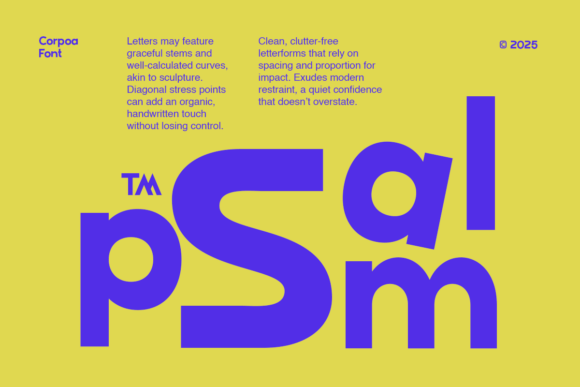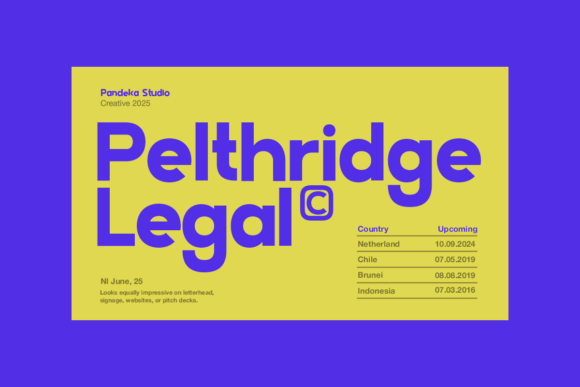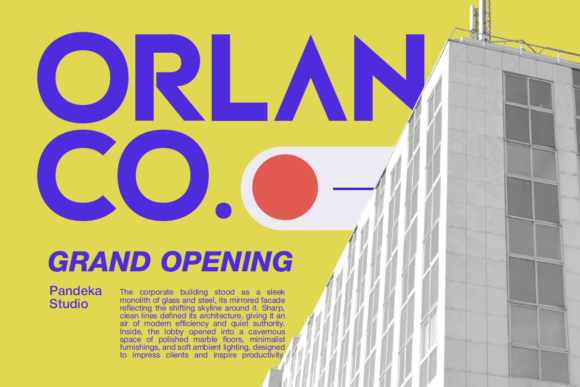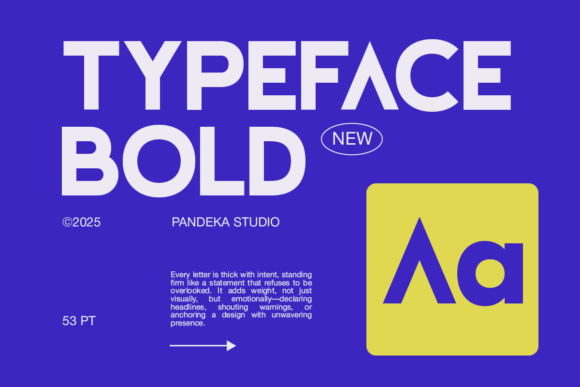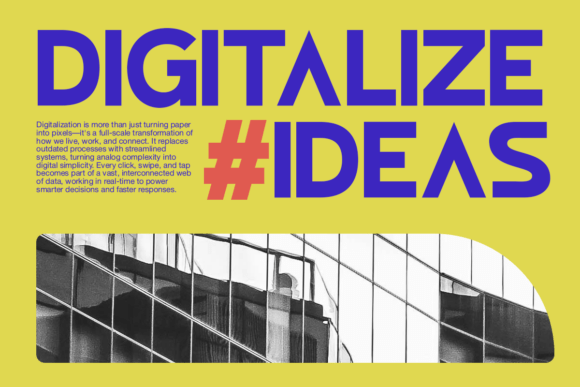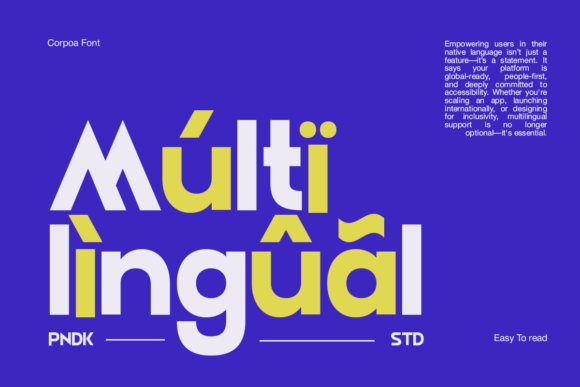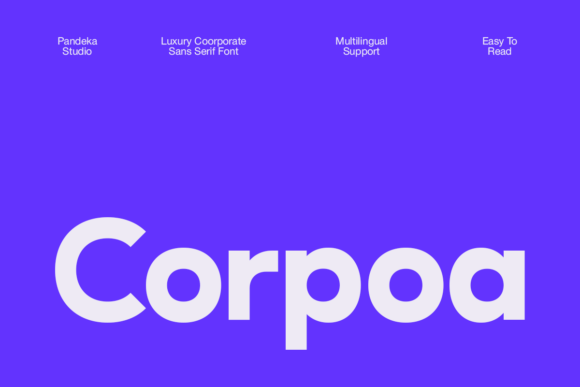
Introducing Corpoa Font: The Perfect Blend of Boldness and Friendliness
In the world of typography, finding the right font can make all the difference in creating a lasting impression. For designers and crafters looking for a font that exudes confidence and approachability, Corpoa Font is an excellent choice. This contemporary rounded sans-serif font is designed to fuse bold character with a friendly tone, making it perfect for a wide range of applications.
Design Characteristics of Corpoa Font
Corpoa Font boasts soft terminals and a geometric structure, giving it a versatile look that works seamlessly in both print and digital settings. Its rounded edges and smooth curves create a friendly and approachable feel, while its bold lines and geometric shape ensure that it remains legible and attention-grabbing. This unique combination of characteristics makes Corpoa Font an excellent choice for designers looking to create a lasting impression.
Versatility of Corpoa Font
One of the standout features of Corpoa Font is its versatility. Its clean and modern design makes it perfect for a wide range of applications, including:
- Branding: Corpoa Font is ideal for creating a strong and recognizable brand identity. Its bold and friendly design ensures that your brand stands out from the crowd.
- Editorial Layouts: The font’s excellent legibility and clean design make it perfect for use in editorial layouts, such as magazines, newspapers, and books.
- Posters: Corpoa Font is well-suited for poster design, thanks to its bold and attention-grabbing design.
- Marketing Materials: The font’s friendly and approachable tone makes it perfect for use in marketing materials, such as brochures, flyers, and business cards.
- Startups: Corpoa Font is an excellent choice for startups looking to create a strong and modern brand identity.
- Corporate Identity: The font’s clean and professional design makes it perfect for use in corporate identity, such as logos, letterheads, and invoices.
Why Choose Corpoa Font?
So why choose Corpoa Font over other fonts? Here are just a few reasons:
- Unique Balance: Corpoa Font offers a striking balance between legibility and personality, making it perfect for designers looking to create a lasting impression.
- Bold without Being Aggressive: The font’s bold design ensures that it grabs attention without being aggressive or overpowering.
- Modern without Being Cold: Corpoa Font’s clean and modern design ensures that it remains approachable and friendly, rather than cold and impersonal.
- Human Touch: The font’s soft terminals and rounded edges give it a human touch, making it perfect for designers looking to create a connection with their audience.
In conclusion, Corpoa Font is an excellent choice for designers and crafters looking for a font that exudes confidence and approachability. Its unique blend of bold character and friendly tone makes it perfect for a wide range of applications, from branding and editorial layouts to posters and marketing materials. With its versatility, legibility, and personality, Corpoa Font is sure to become a go-to font for designers looking to make a bold, clean statement with a human touch.
Whether you’re a seasoned designer or just starting out, Corpoa Font is definitely worth checking out. Its unique design characteristics, versatility, and excellent legibility make it an excellent addition to any design project. So why not give Corpoa Font a try and see the difference it can make in your designs?